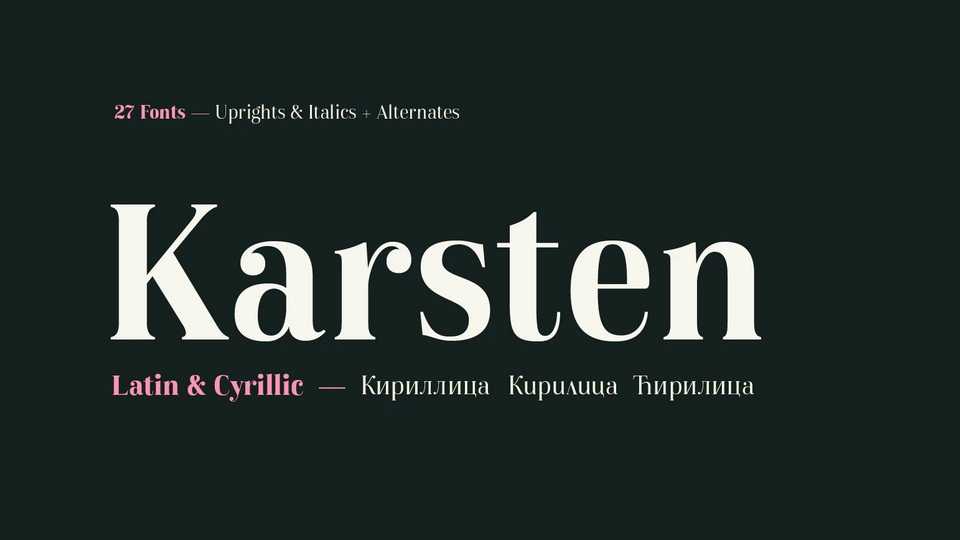
Download Karsten font, an elegant serif typeface inspired by signs on some old Dutch-buildings in Java and blended with modern style. Karsten is a synthesis between two cultures, the East & the West.
Designer: Nasir Udin